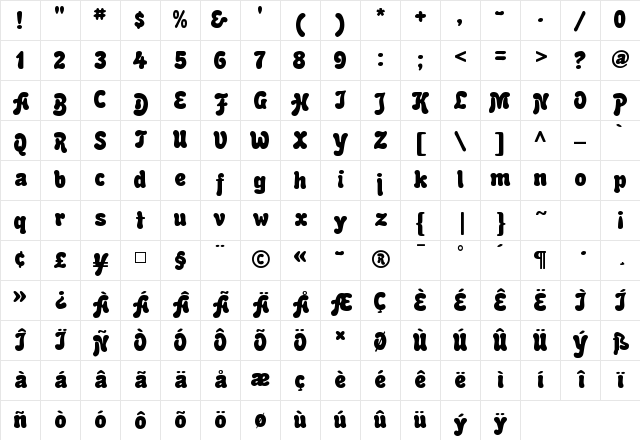
Advert Regular
Advert Family
Design Context for Advert
Advert is a composed and adaptable typeface that performs quietly and consistently across a wide range of design contexts.